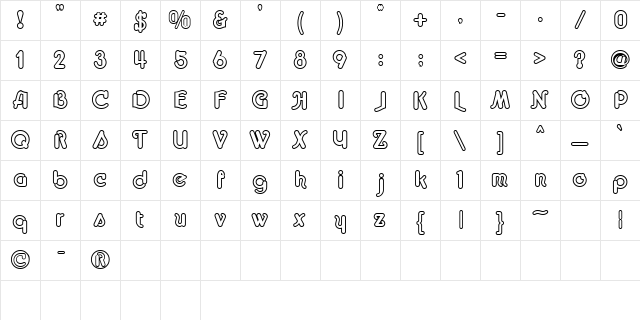
Cupolaopen Regular
Design Context for Cupolaopen Typeface
Cupolaopen is a composed and adaptable typeface that performs quietly and consistently across a wide range of design contexts.